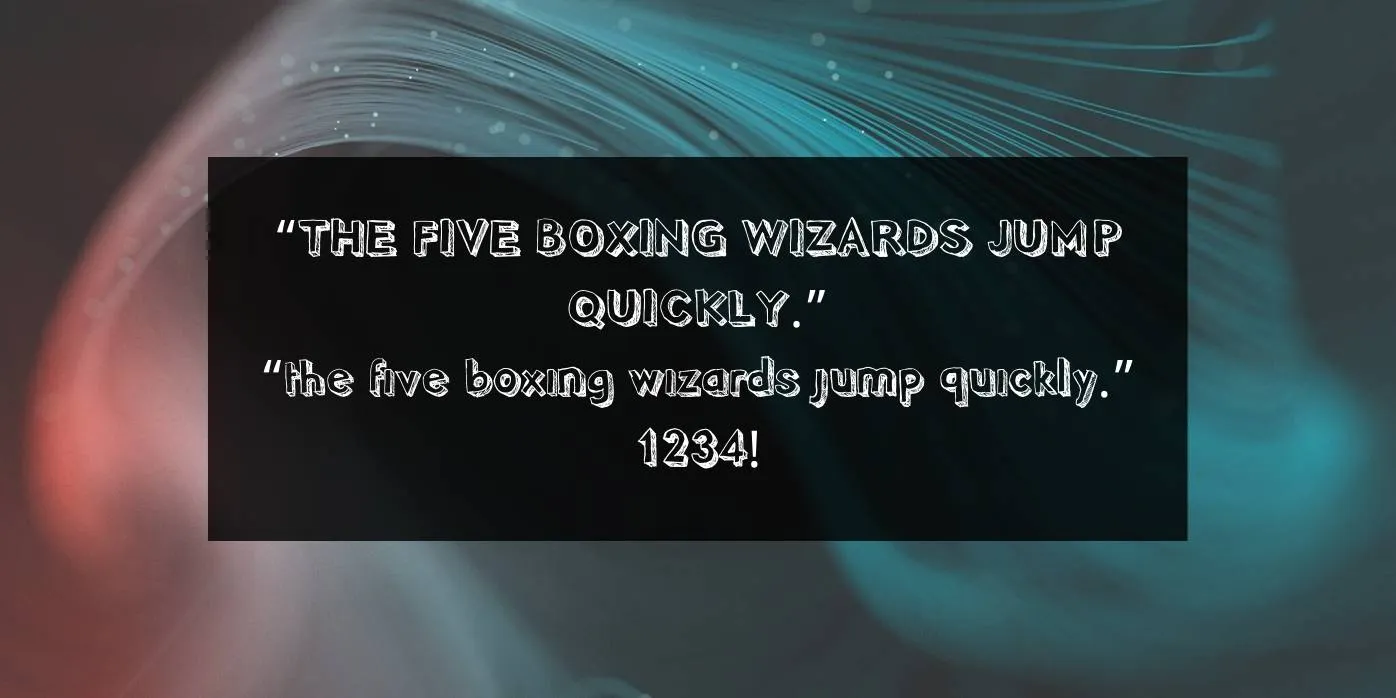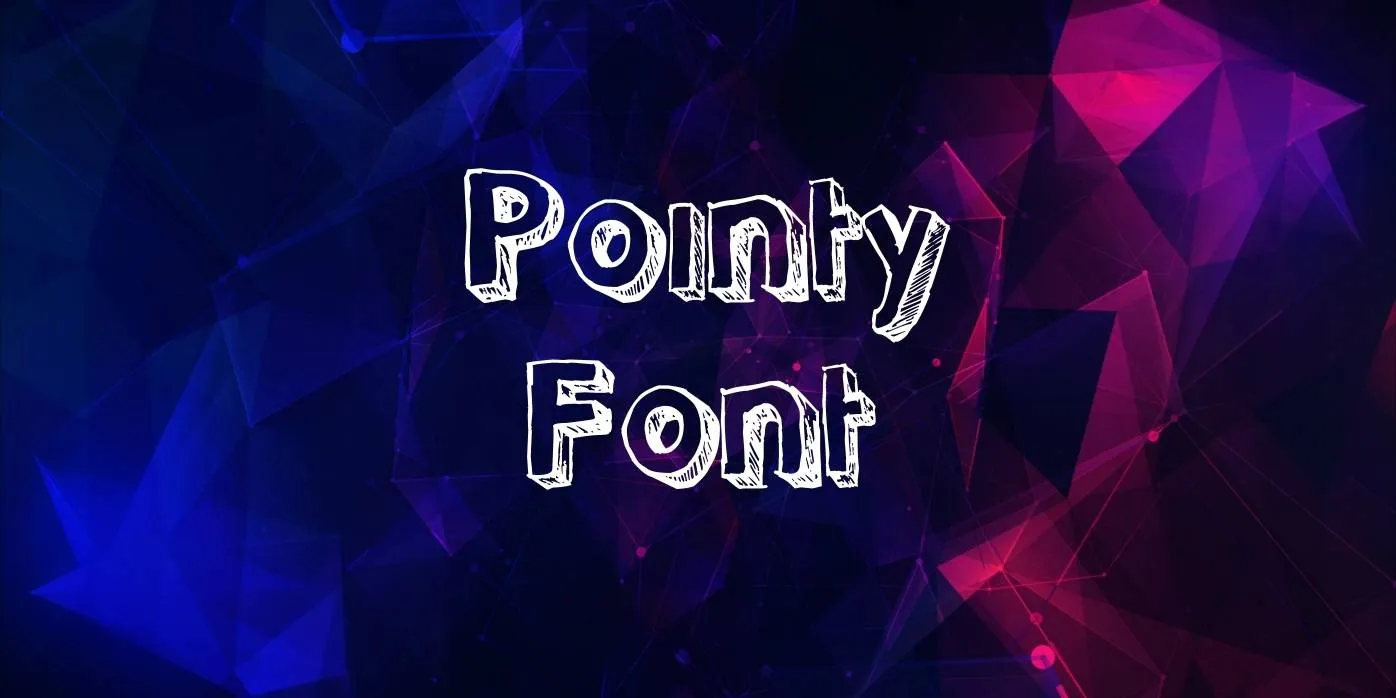
Pointy Font
In this post, we present Pointy Font which belongs to the 3D fonts family. The main developer of this family was Bit foundry. This family was firstly published in 1996. Pointy Font is a sans-serif typeface that has been designed specifically for use on display screens.
The Pointy Font family comprises six different styles Regular, Bold, Italic, Bold Italic, Extra Bold, Extra Bold Italic, and so on. Each style contains four different weights: light, normal, medium, and heavy. Its copy and paste function is very amazing for all designs. The generator tool of this family is very classic.
The light weight is perfect for a text that needs to be easily readable, while the bold and extra bold weights are ideal for headlines and other short blocks of text. The italic styles are perfect for adding a touch of elegance to your design, while the medium and heavy weights can be used for more impactful designs.